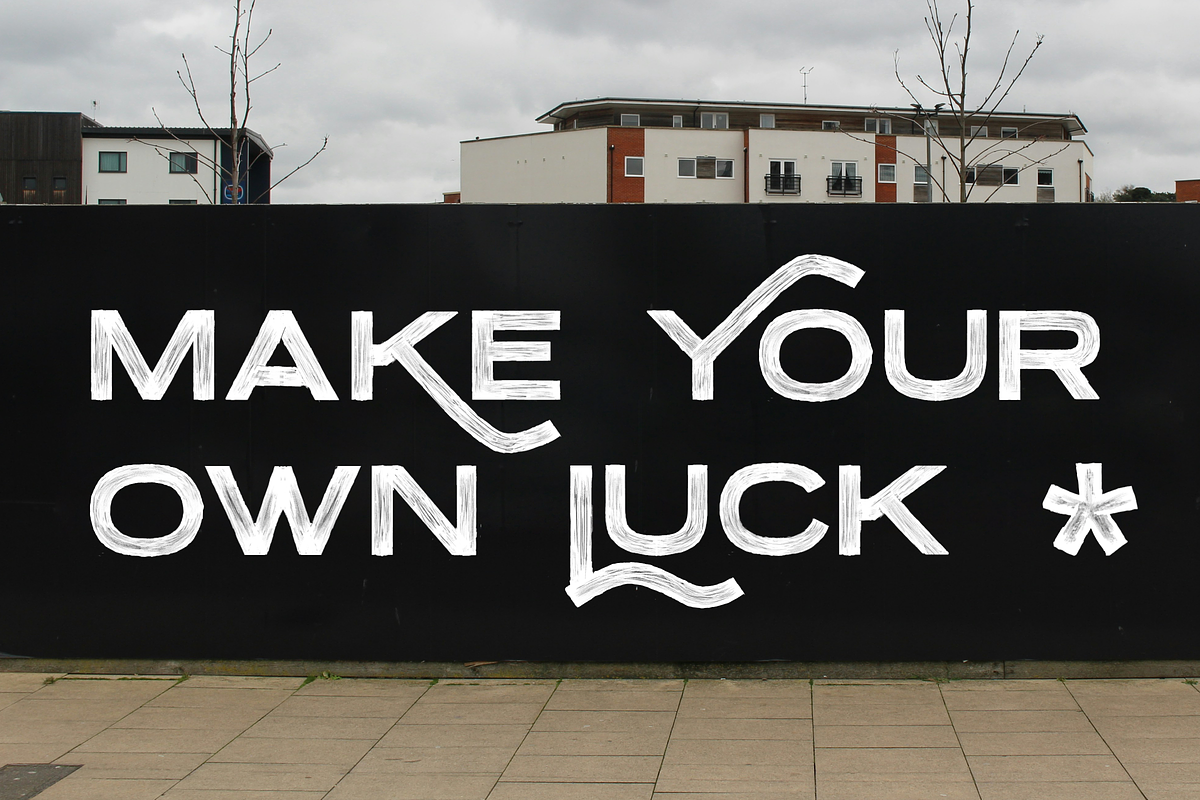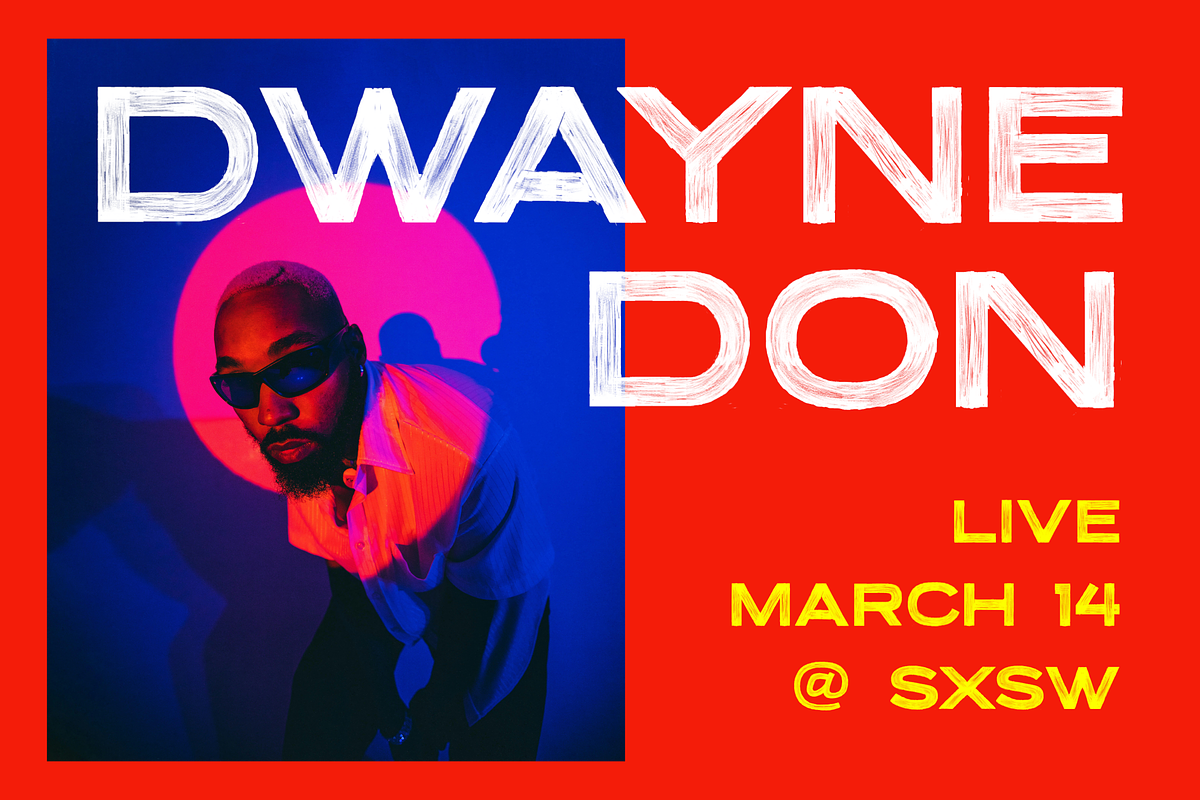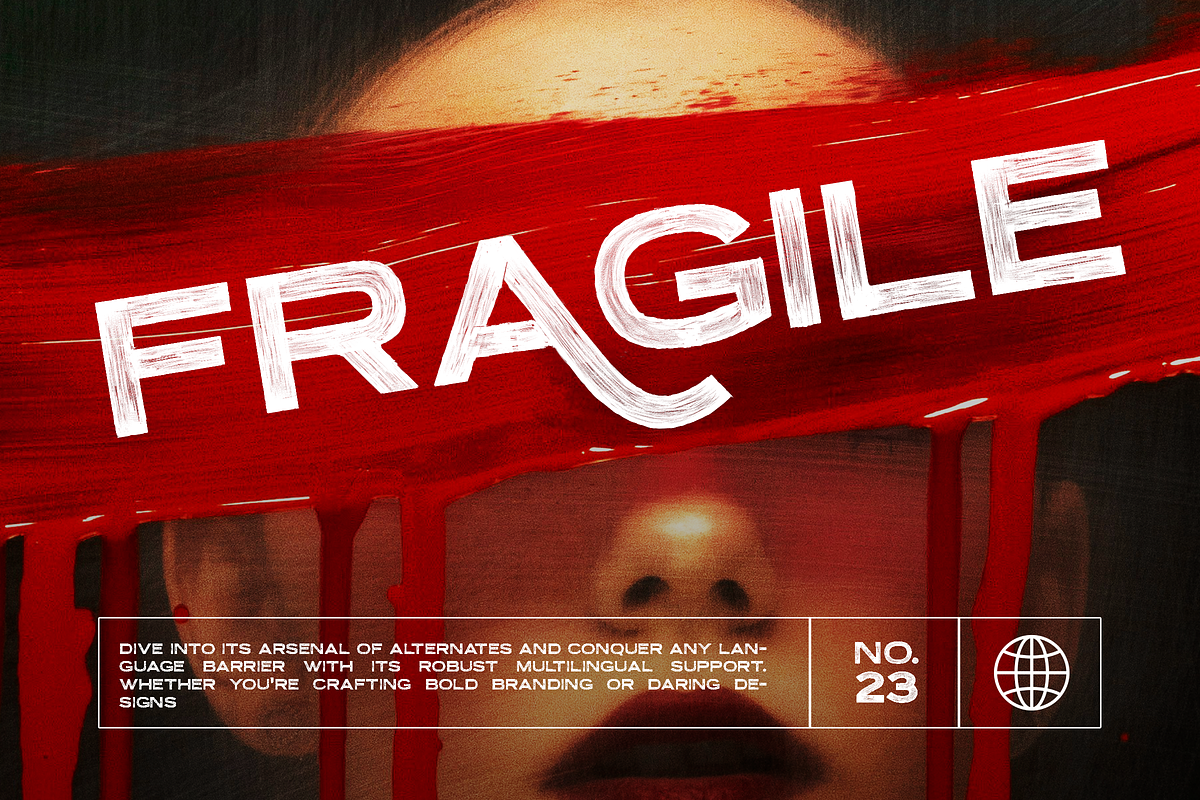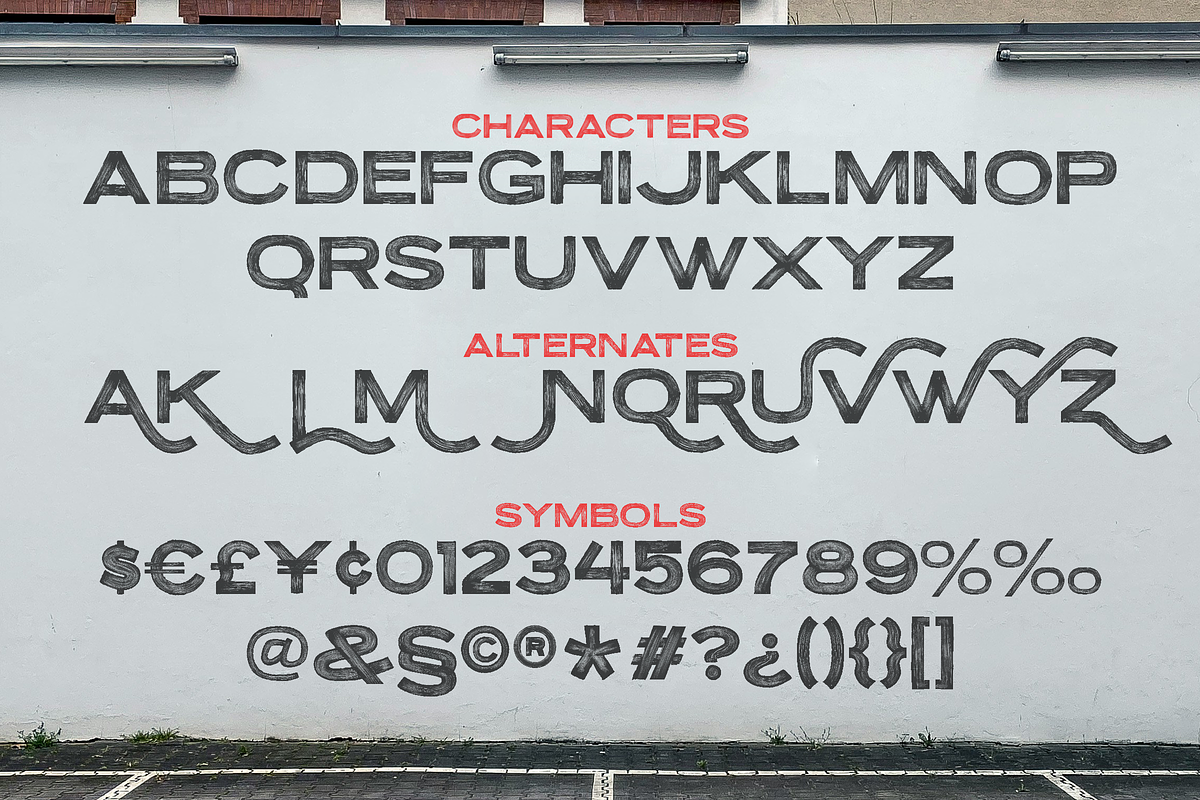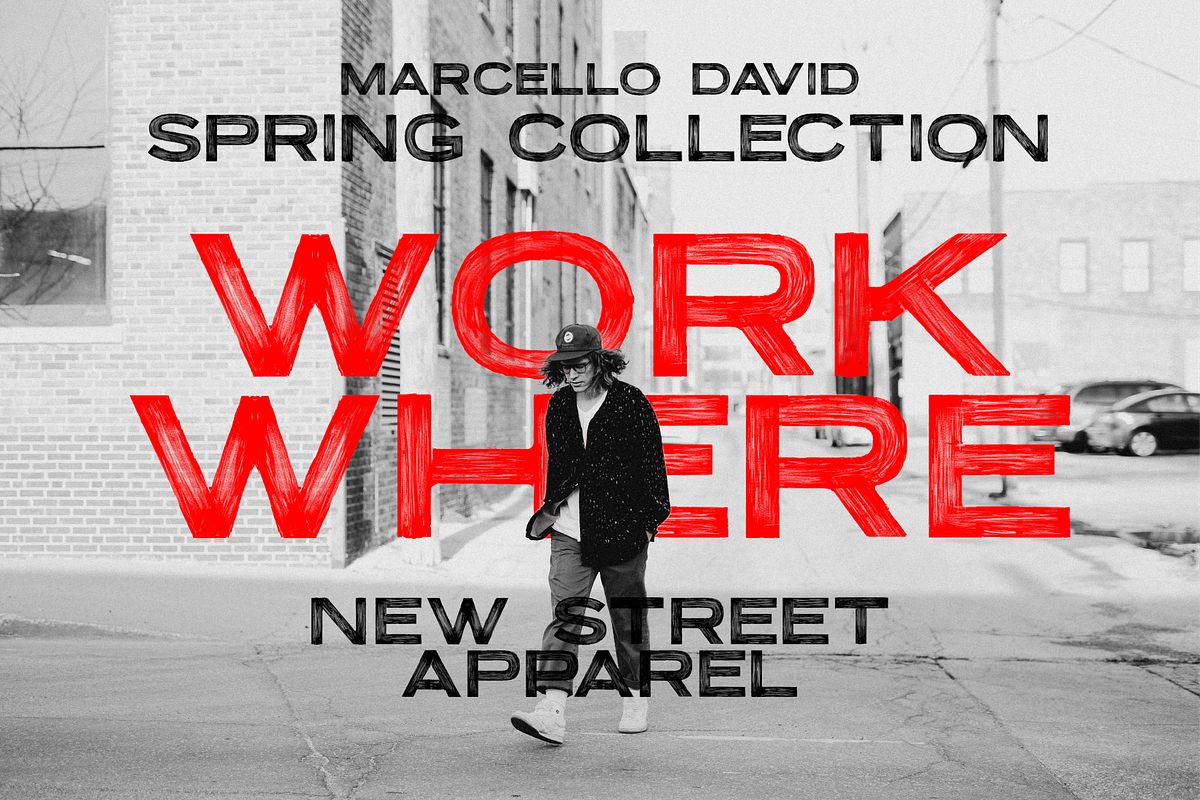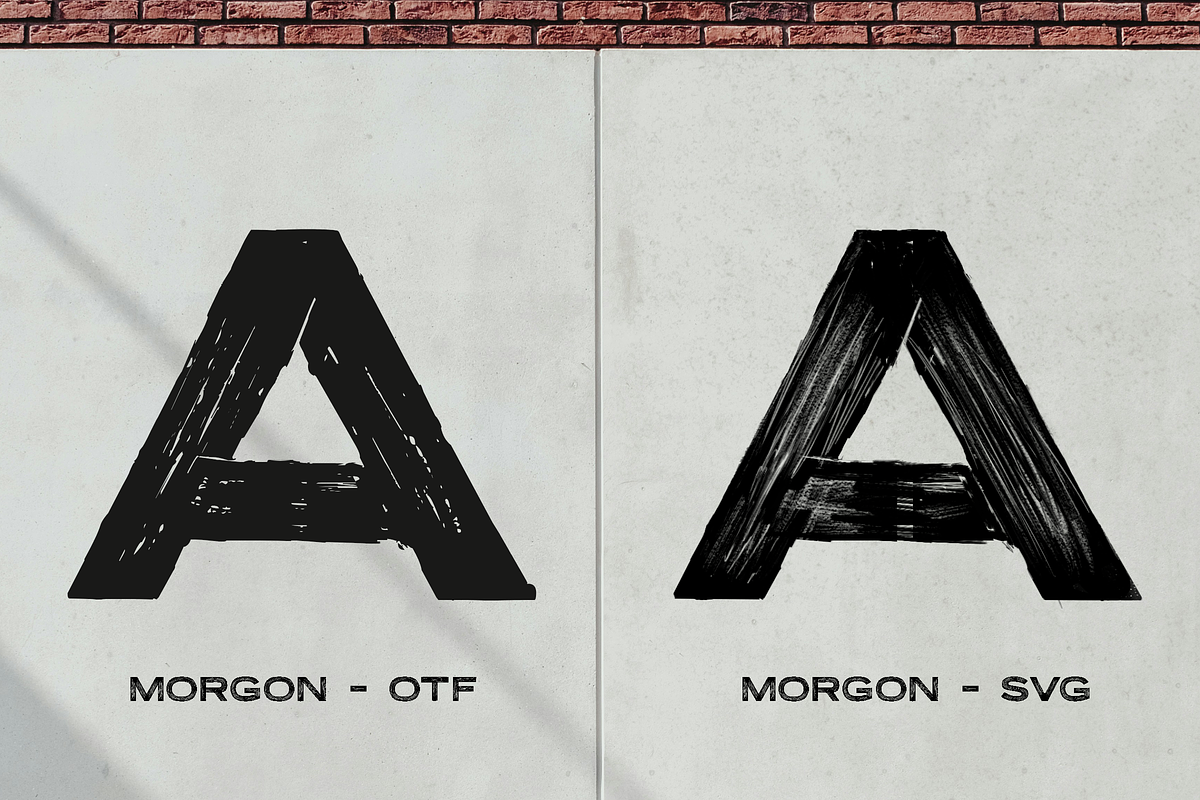
Morgon - Textured SVG Display Font
Morgon is a textured SVG display font. This expanded sans serif includes some handy alternate characters for creating more engaging typographic designs.
Enjoy the bold strokes and big texture of the regular vector font, or add the unique transparency provided by the SVG version.
Make your brand stand out today by choosing Moron SVG!